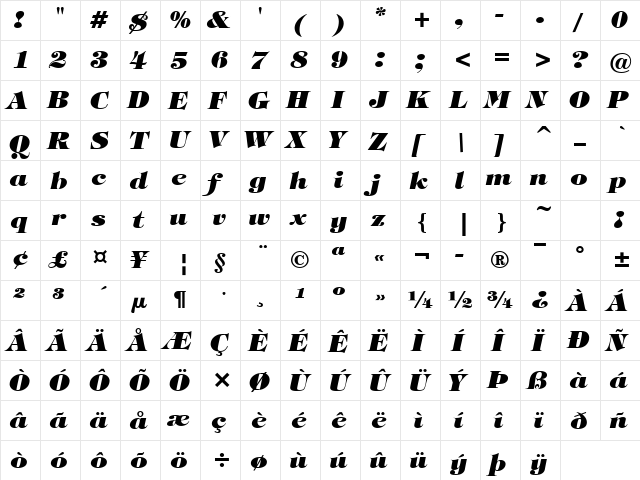
Fantasy Bold Italic
Design Context for Fantasy Typeface
Fantasy takes a measured approach to typography — its balanced proportions and neutral character make it a reliable workhorse for both digital and print work. The slanted form adds forward momentum and visual energy. The heavy weight commands attention and anchors typographic hierarchies.
Pro Tip: Use Fantasy for emphasis, pull quotes, and subheadings where its slanted energy can add rhythm to the layout.